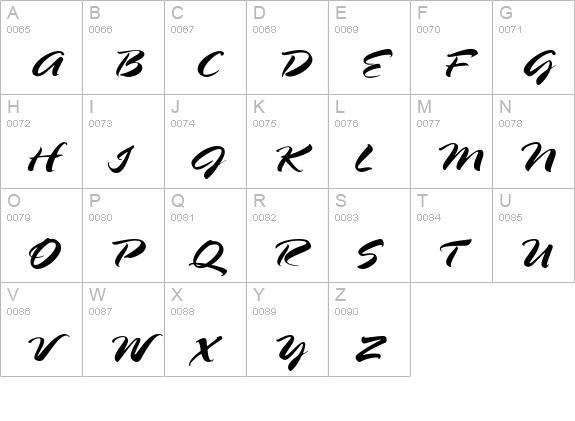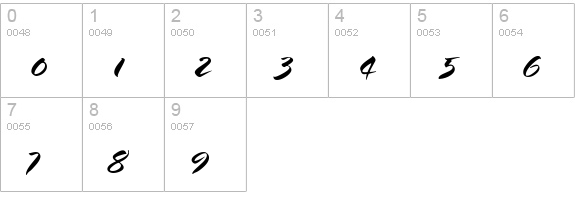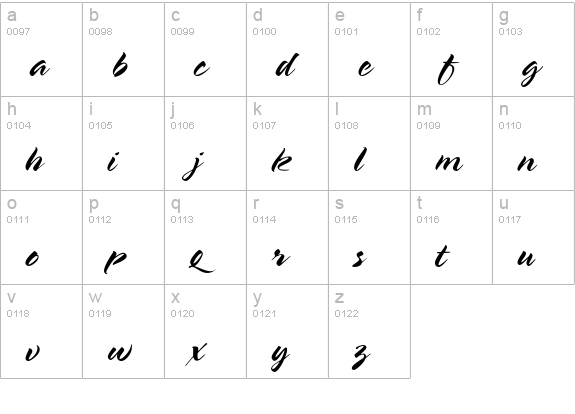
Spring font is a delightful and playful typeface that adds a touch of whimsy to any design project. With its graceful curves and charmingly uneven strokes, this font captures the essence of the season it is named after. It exudes a sense of freshness and renewal, making it perfect for everything from greeting cards and invitations to logos and branding. One of the best things about Spring font is that it is available for free. That's right, you can download this beautiful font without spending a penny! Whether you're a professional designer or a DIY enthusiast, having access to high-quality fonts can make a world of difference in your creative endeavors. And with Spring font, you can add a touch of elegance and creativity to your designs with ease. To get your hands on this amazing font, simply head over to FontsMarket.com. There, you will find a wide range of fonts to suit every style and need, including the delightful Spring font. With just a few clicks, you can download and start using this font in your projects, whether it's for personal or commercial use. So why wait? Embrace the beauty of the season with Spring font. It's free, it's fabulous, and it's waiting for you to unleash your creativity. Download it today from FontsMarket.com and let your designs bloom!